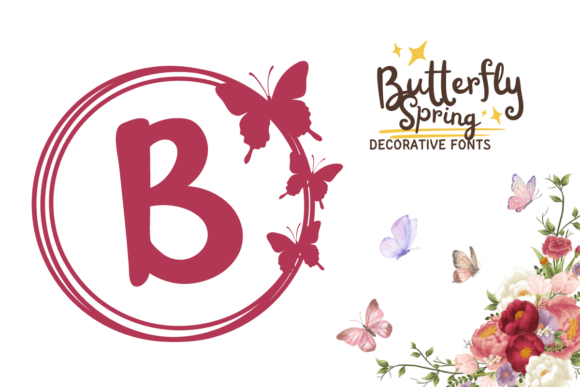
The Delightful World of Butterfly Spring Font
Have you ever been in the middle of a design project, and suddenly, the perfect font seems elusive? I recall a particularly frustrating moment when I was working on a greeting card design. My client wanted something delicate, yet playful, and I was stuck. That’s when I stumbled upon the Butterfly Spring Font, and it completely transformed my design. In this article, we’ll dive into the world of Butterfly Spring Font, exploring its features, uses, and some helpful tips for getting the most out of this beautiful decorative font.
A Personal Review of Butterfly Spring Font
As a designer, I’m always on the lookout for fonts that can add a touch of personality to my projects. Butterfly Spring Font has quickly become one of my favorites, and here’s why:
- ✨ Delicate and Playful: This font has a whimsical feel that’s perfect for designs that require a touch of elegance and playfulness.
- ✅ Highly Versatile: Whether you’re creating greeting cards, banners, or social media posts, Butterfly Spring Font adapts seamlessly to various design contexts.
- 💫 OpenType Features: This font comes with a range of OpenType features, including glyphs and stylistic alternates, which can add an extra layer of creativity to your designs.
- 🤔 Limited Use in Body Text: Due to its decorative nature, Butterfly Spring Font may not be the best choice for lengthy body text. It’s better suited for headings, titles, or short paragraphs.
- ⚠️ Glyph Compatibility: Some glyphs might not work seamlessly across all platforms or software. It’s essential to test the font in your design application before finalizing your project.
The Story Behind Butterfly Spring Font
The story behind Butterfly Spring Font is one of inspiration and creativity. Imagine a designer who was captivated by the delicate beauty of butterflies and the serenity of spring. They wanted to create a font that would evoke the same sense of wonder and playfulness. And so, Butterfly Spring Font was born – a beautiful, decorative font that’s perfect for adding a touch of elegance and whimsy to your designs.
| Font Name | Butterfly Spring Font |
| What is Butterfly Spring Font best used for? | Butterfly Spring Font is ideal for designs that require a touch of elegance and playfulness, such as greeting cards, banners, social media posts, and more. |
| Is Butterfly Spring Font suitable for body text? | No, due to its decorative nature, Butterfly Spring Font is better suited for headings, titles, or short paragraphs. |
| Does Butterfly Spring Font come with OpenType features? | Yes, Butterfly Spring Font comes with a range of OpenType features, including glyphs and stylistic alternates. |